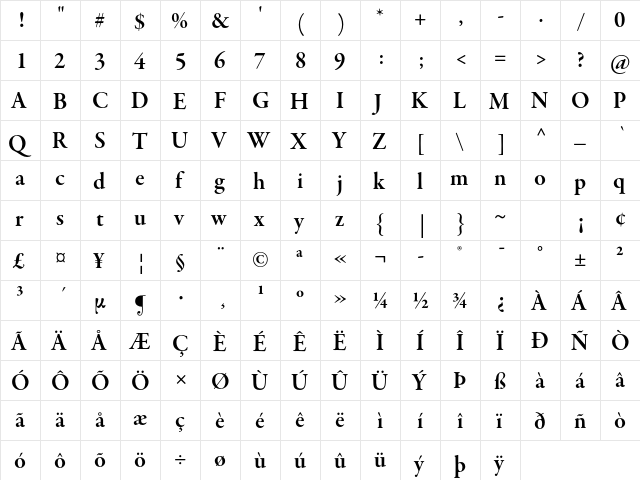
Garamond Premier Pro Semibold Subhead
| Designer | Robert Slimbach |
Design Context for Garamond Premier Pro Typeface
Garamond Premier Pro is a composed and adaptable typeface that performs quietly and consistently across a wide range of design contexts. The heavy weight commands attention and anchors typographic hierarchies.
Pro Tip: Use Garamond Premier Pro in both headline and body roles to test its range before committing to a single application.